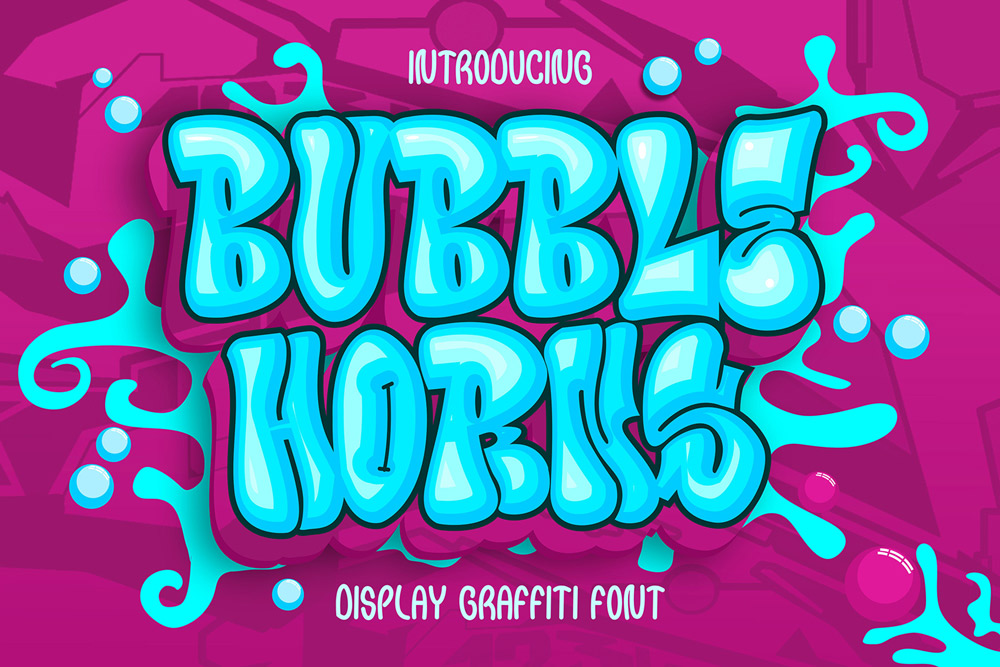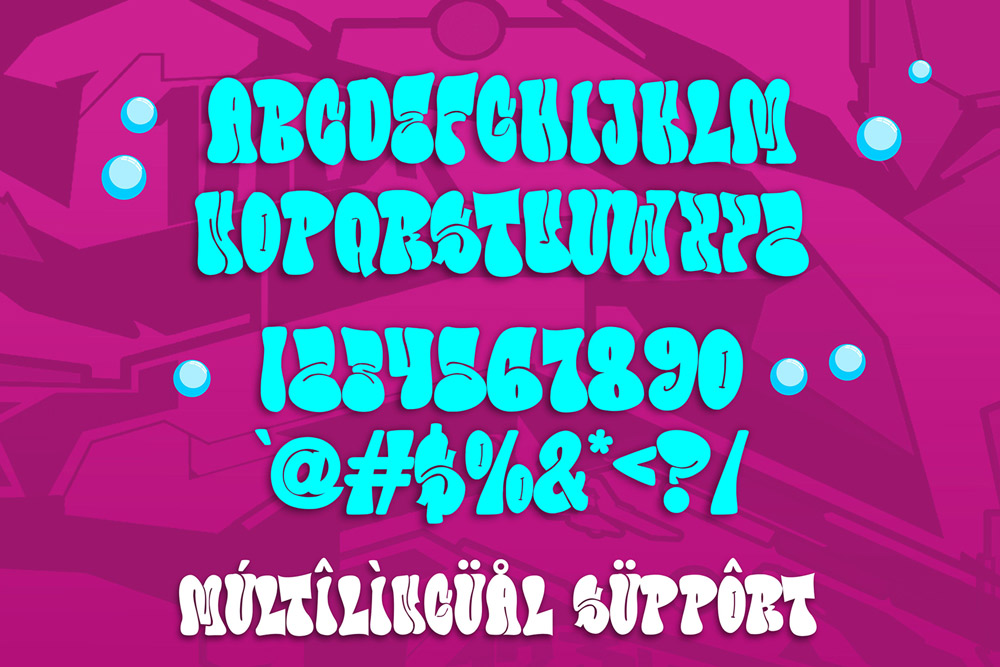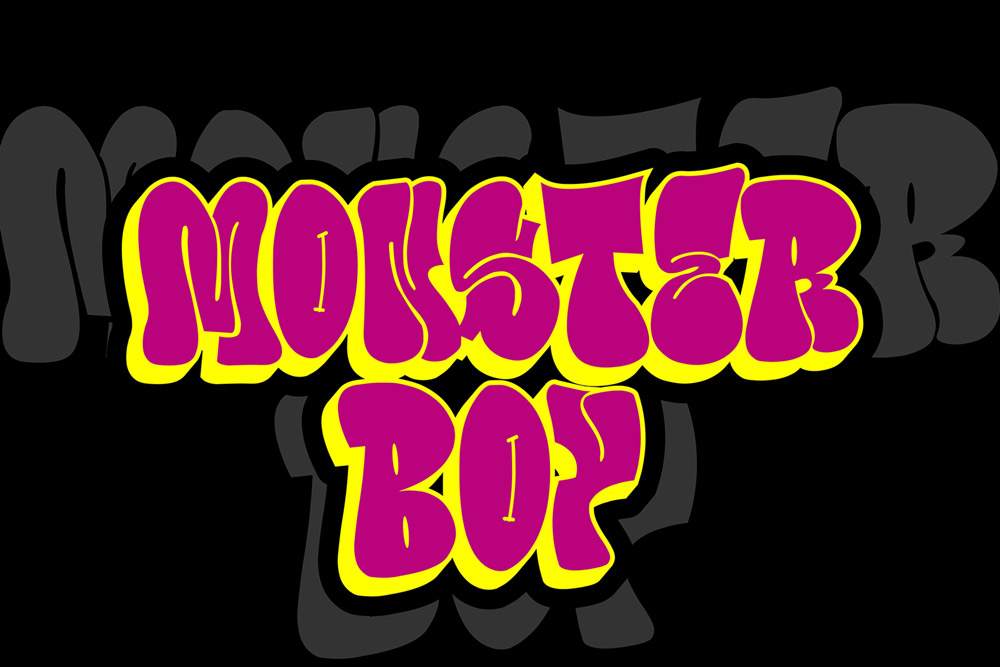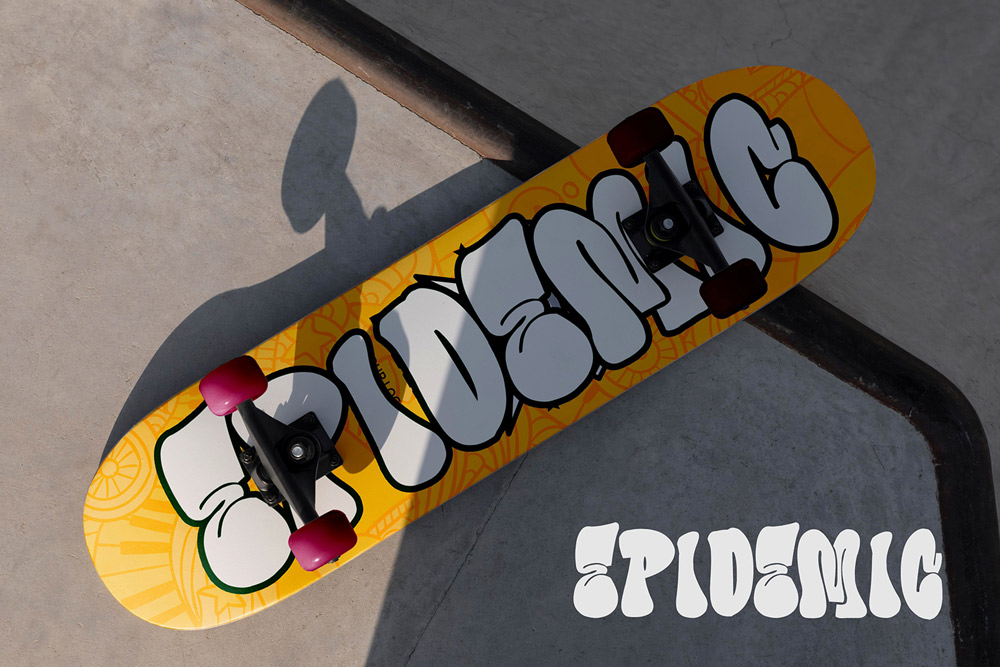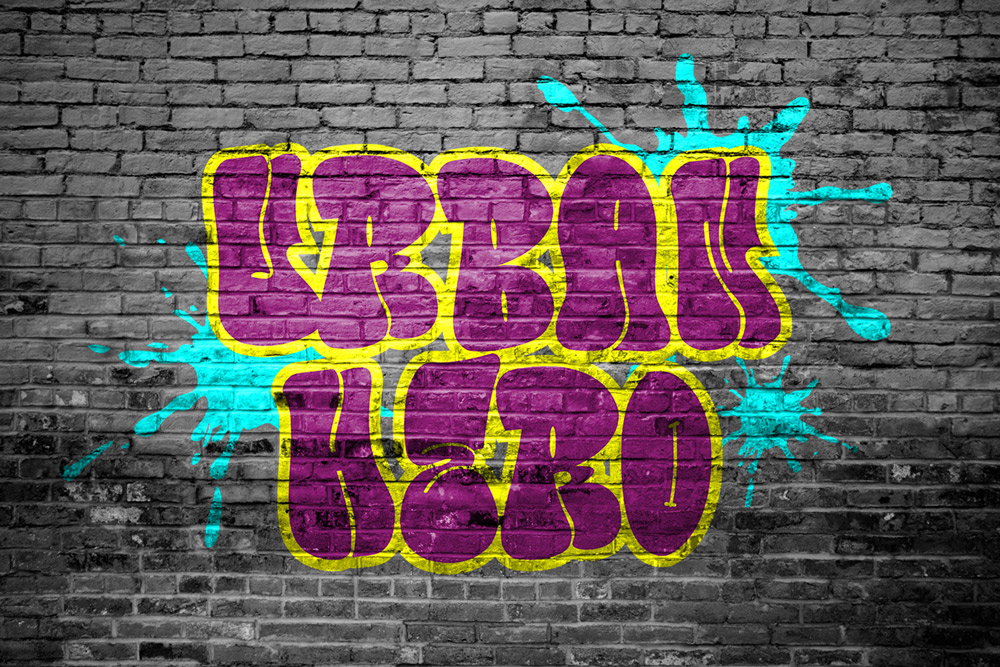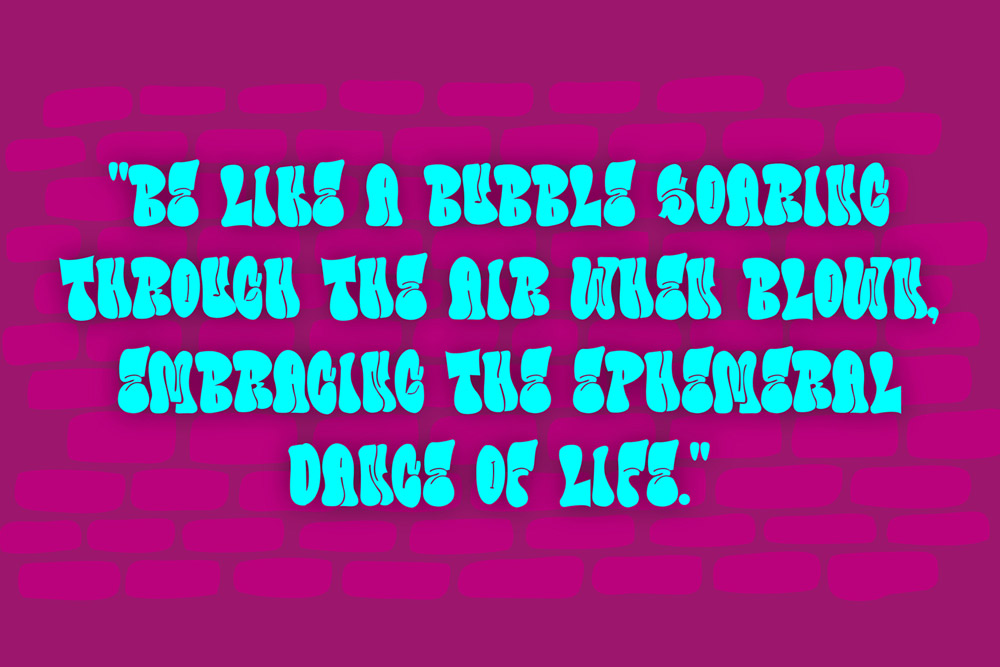
Bubble Horns – Throw Up Graffiti Font
Bubble Horns is a bold and playful graffiti font inspired by authentic throw-up street lettering. Built with rounded bubble shapes and energetic urban flow, this throw up graffiti font captures the fast-paced spirit of graffiti culture while maintaining a fun and highly readable design. Whether you’re creating streetwear branding, posters, album covers, or social media graphics, Bubble Horns graffiti font delivers a strong urban personality that instantly grabs attention.
This bubble graffiti font is designed for creators who want expressive typography with a street-inspired edge. Its inflated shapes and dynamic curves give every word a lively and eye-catching appearance, making Bubble Horns a standout urban graffiti font for modern design projects.
A Throw Up Graffiti Font with Authentic Street Energy
Bubble Horns graffiti font is inspired by traditional throw-up graffiti styles often seen across urban walls and street art culture. This throw up graffiti font emphasizes speed, flow, and bold visual impact. The rounded letters create a playful yet aggressive energy that reflects real graffiti aesthetics.
Unlike rigid typography, this graffiti font feels organic and expressive. The inflated bubble structure gives the letters a soft but bold presence, making Bubble Horns ideal for projects that require both fun and attitude.
Bold Bubble Shapes with Urban Character
The signature style of Bubble Horns graffiti font comes from its exaggerated bubble forms and smooth urban curves. This bubble graffiti font creates a strong visual rhythm that keeps your typography engaging and memorable.
Because of its thick rounded shapes, this graffiti display font remains highly readable even at large sizes. It works perfectly for posters, logos, apparel graphics, and digital content that require bold typography with authentic street style.
This urban graffiti font also brings a nostalgic touch inspired by classic graffiti throw-up lettering while remaining fresh and modern for today’s creative trends.
Complete Character Set & Typography Features
Bubble Horns – Throw Up Graffiti Font includes everything needed for professional and creative typography projects.
Uppercase Characters
Bold and expressive uppercase letters designed with authentic throw up graffiti font aesthetics.
Multilingual Support
Supports multiple languages, making this graffiti font suitable for international branding and global audiences.
Numbers & Punctuation
Includes a complete set of numbers and punctuation for flexible design applications using this urban graffiti font.
- Authentic throw up graffiti font design
- Bold bubble-style urban lettering
- High readability for display typography
- Perfect for streetwear and urban branding
- Smooth and playful graffiti character
- Works across digital and print platforms
- Inspired by real street tagging culture
Why Designers Love Bubble Horns
Designers love Bubble Horns graffiti font because it combines playful energy with authentic street aesthetics. This bubble graffiti font offers a bold personality without becoming too chaotic, making it easy to use across different creative projects.
Another reason creators choose this throw up graffiti font is its versatility. The rounded shapes work beautifully for branding, merchandise, and digital content while still delivering strong urban identity. This flexibility makes Bubble Horns a reliable graffiti display font for modern designers.
The nostalgic throw-up style also gives this urban graffiti font a timeless quality. It captures the raw energy of classic graffiti culture while remaining clean enough for professional use.
Perfect For Creative Projects
Bubble Horns graffiti font is ideal for:
- Streetwear branding
- Graffiti posters and flyers
- Music album covers
- Social media graphics
- Urban logo design
- Merchandise and apparel
If you’re looking for a throw up graffiti font that combines bold bubble lettering with authentic street energy, Bubble Horns is the perfect choice.
Pairing Bubble Horns graffiti font with a raw dripping style creates a powerful contrast between playful bubble shapes and aggressive street textures, resulting in a dynamic graffiti font combination.
If you want a bubble graffiti font that delivers fun, impact, and authentic street personality, Bubble Horns is your ultimate choice. Elevate your designs, express your creativity, and make every project stand out with a throw up graffiti font built for modern urban creators.